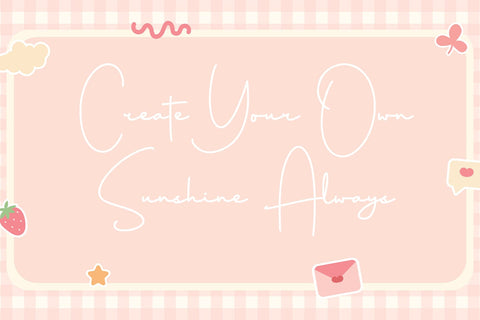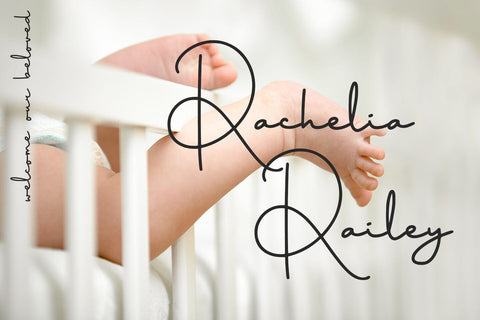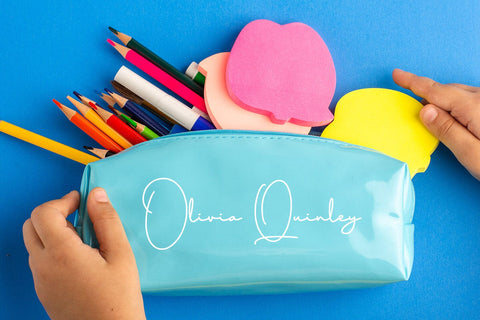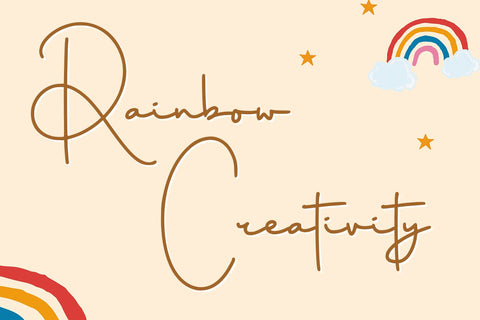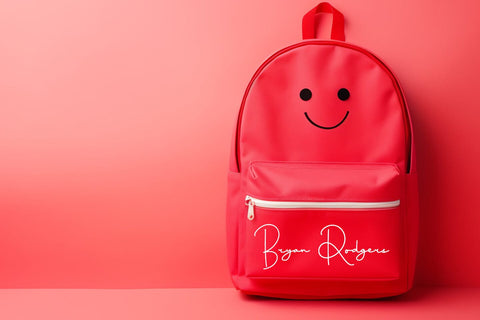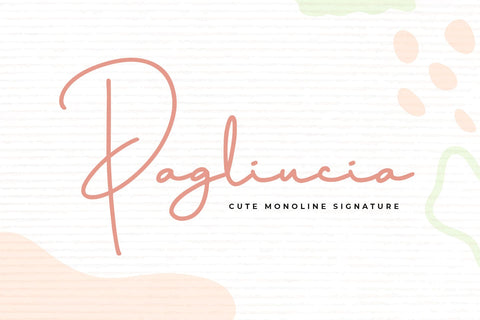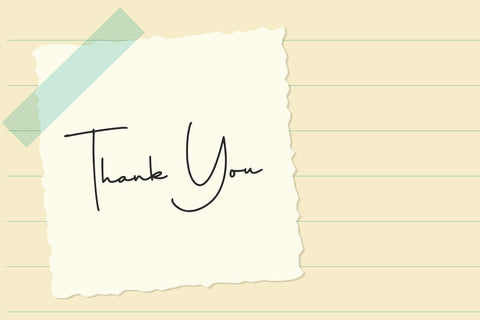
Pagliucia
introducing
PAGLIUCIA
- cute monoline signature font-
PAGLIUCIA is natural signature font.
It is great for branding, quotes, logos, t-shirt designs, tote bag designs, cards, banners, social media, and more.